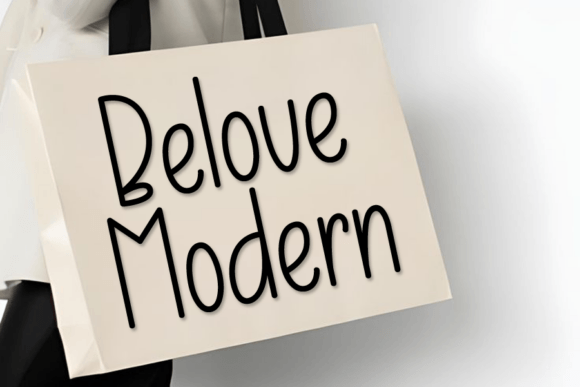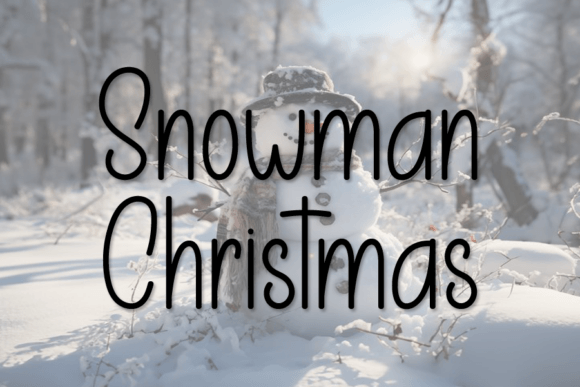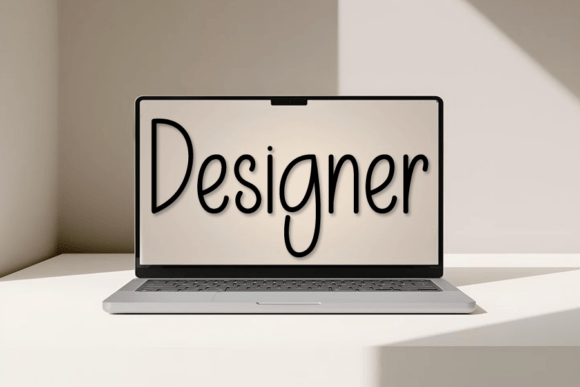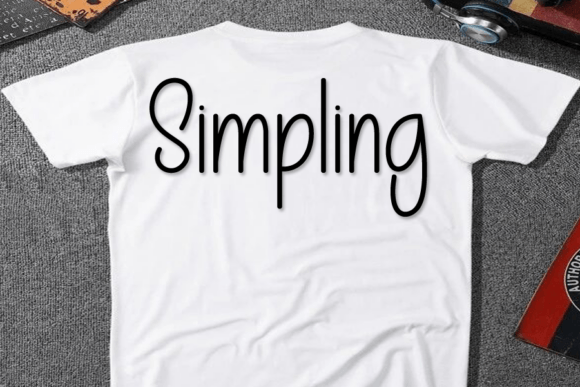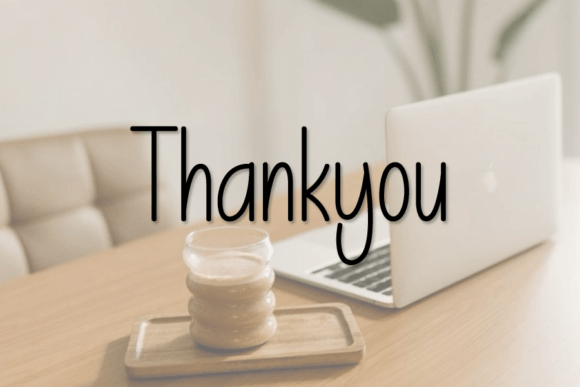
Discover the Whimsical World of Angela Snowing Font
Are you tired of using the same old fonts in your design projects? Look no further! Introducing Angela Snowing Font, a fun and quirky font that’s sure to elevate your creations and make them stand out from the crowd. With its unique and playful style, this font is perfect for designers and crafters looking to add a touch of personality to their work.
The Versatility of Angela Snowing Font
One of the best things about Angela Snowing Font is its versatility. No matter the topic or industry, this font can be used to create stunning designs that capture attention and convey your message with style. Whether you’re working on a logotype, headline font, corporate identity, brand identity, or any other design project, Angela Snowing Font is an incredible asset to have in your font library.
Angela Snowing Font is suitable for a wide range of design projects, including:
- Logotype and branding: Create a memorable and distinctive brand identity with this font.
- Headline font: Use Angela Snowing Font to craft attention-grabbing headlines that draw readers in.
- Corporate identity: Add a touch of whimsy to your company’s marketing materials and stationery.
- Brand identity: Develop a consistent visual brand language with this unique font.
- Apparel industry: Design eye-catching t-shirts, hoodies, and other apparel with Angela Snowing Font.
- Poster and flyer design: Create bold and eye-catching posters and flyers that get noticed.
- Music and movie: Use this font to create striking album covers, movie posters, and other promotional materials.
- Game and comic design: Add a touch of playfulness to your game or comic book designs.
- Magazine and book publishing: Use Angela Snowing Font to create engaging and visually appealing publications.
- YouTube and Instagram: Elevate your social media content with this fun and quirky font.
- Website design: Use Angela Snowing Font to create a unique and memorable website that stands out from the crowd.
Why Choose Angela Snowing Font?
So, what makes Angela Snowing Font so special? Here are just a few reasons why designers and crafters love this font:
- Unique and playful style: Angela Snowing Font adds a touch of personality to any design project.
- Highly versatile: This font can be used for a wide range of design projects and industries.
- Easy to read: Despite its quirky style, Angela Snowing Font is easy to read and understand.
- Customizable: Experiment with different colors, sizes, and styles to make this font your own.
Tips for Using Angela Snowing Font
To get the most out of Angela Snowing Font, here are a few tips to keep in mind:
- Use it sparingly: While Angela Snowing Font is fun and playful, it can be overwhelming if used too much. Use it sparingly to create visual interest and emphasis.
- Experiment with colors: Try pairing Angela Snowing Font with different colors to create a unique and eye-catching design.
- Mix and match: Combine Angela Snowing Font with other fonts to create a visually appealing and dynamic design.
| Font Name | Angela Snowing Font |
| Author | Abadi letter |
Angela Snowing Font is a fun and quirky font that’s sure to elevate your design projects and make them stand out from the crowd. With its unique and playful style, versatility, and ease of use, this font is perfect for designers and crafters looking to add a touch of personality to their work. Whether you’re working on a logotype, headline font, or any other design project, Angela Snowing Font is an incredible asset to have in your font library.